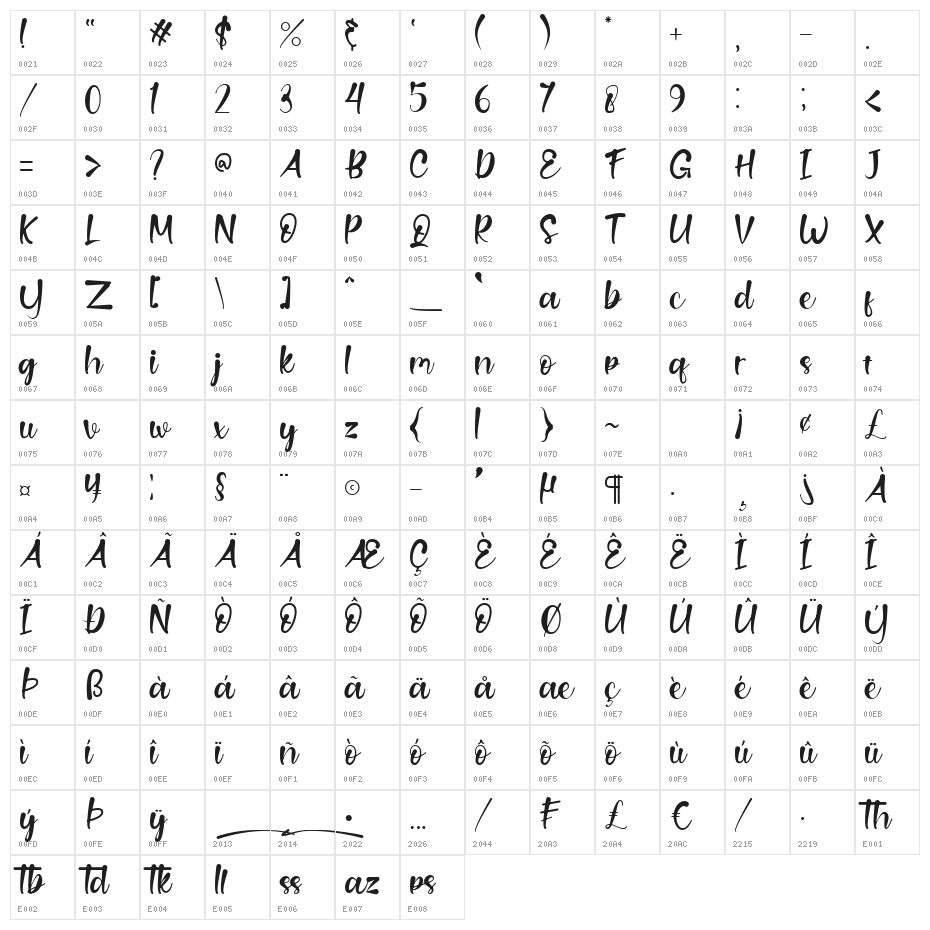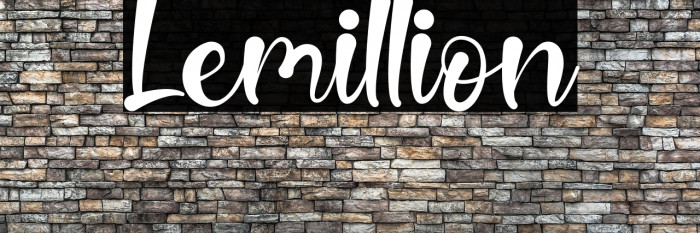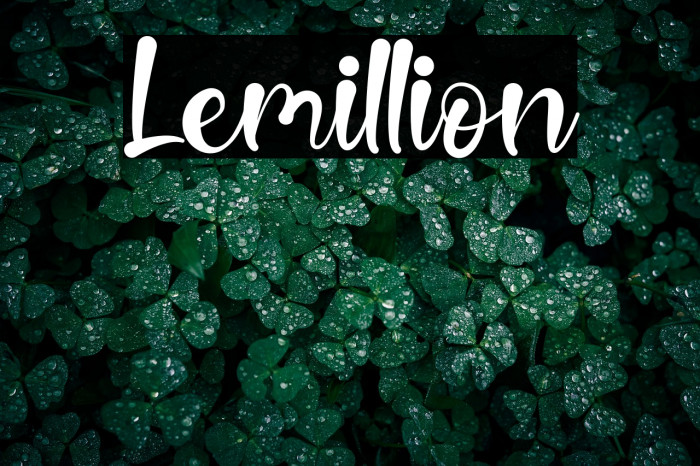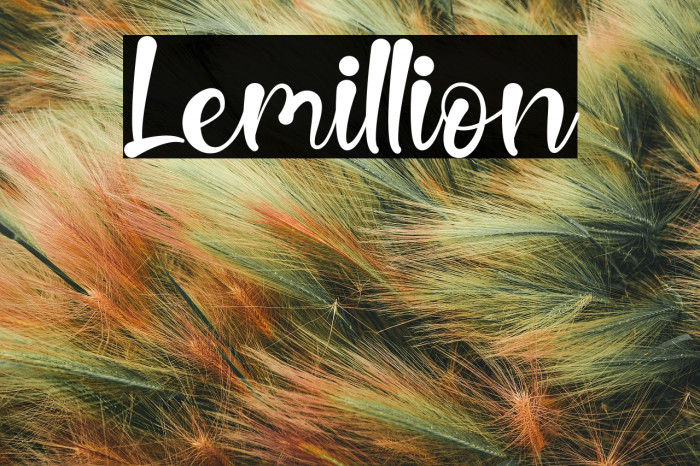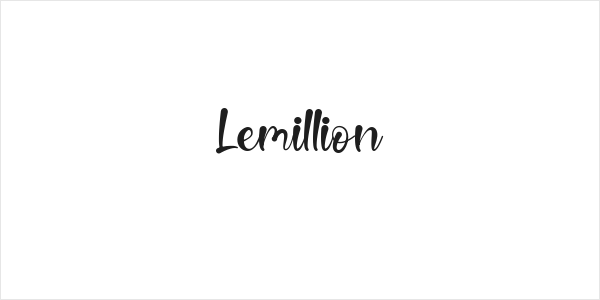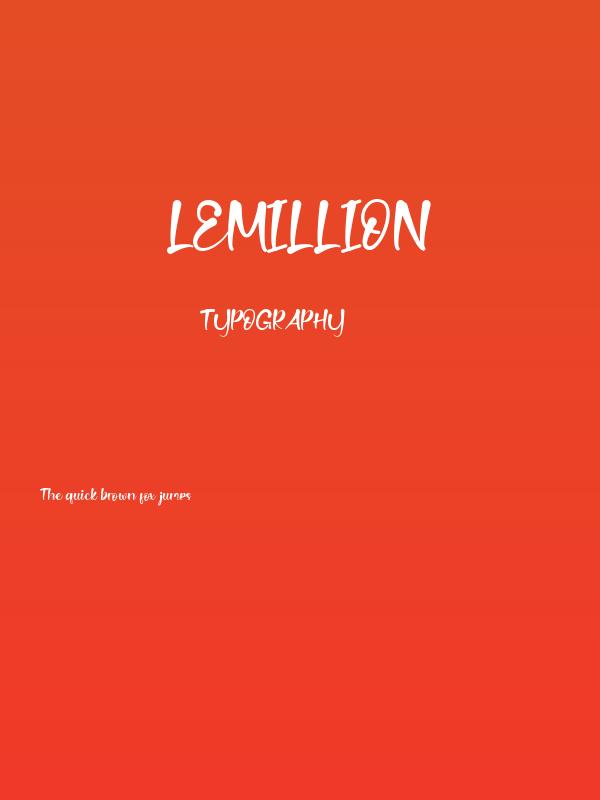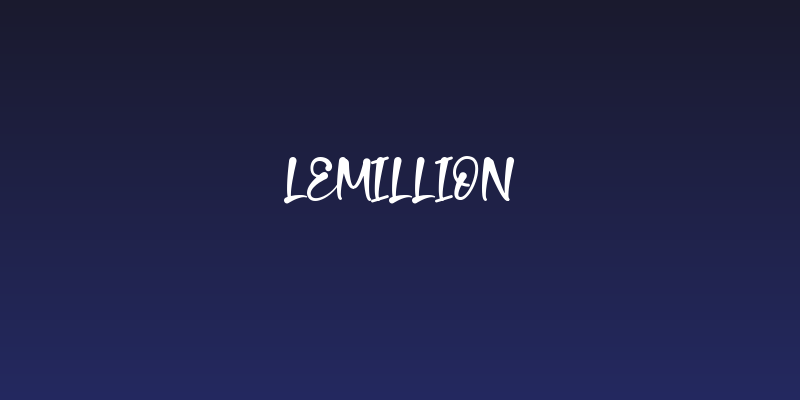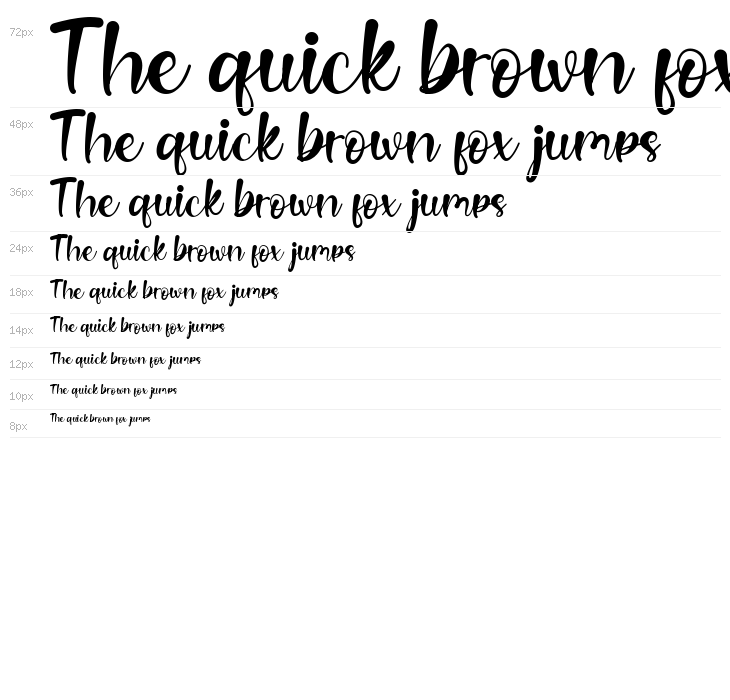
Lemillion Font
Lemillion Description
This font features a dynamic and energetic script style with a handwritten feel. The uppercase letters are bold and expressive, with sweeping curves and a sense of motion. The lowercase letters maintain a consistent flow, complementing the uppercase with their smooth and connected strokes. Numbers are designed with a similar flair, adding a playful touch to the overall aesthetic. Special characters are creatively integrated, maintaining the font's lively character. The overall impression is one of spontaneity and creativity, making it ideal for projects that require a personal and artistic touch.